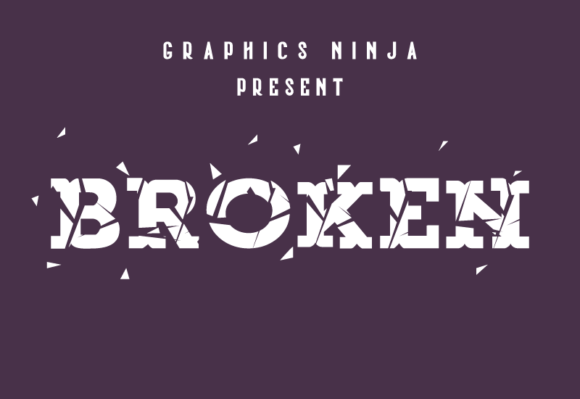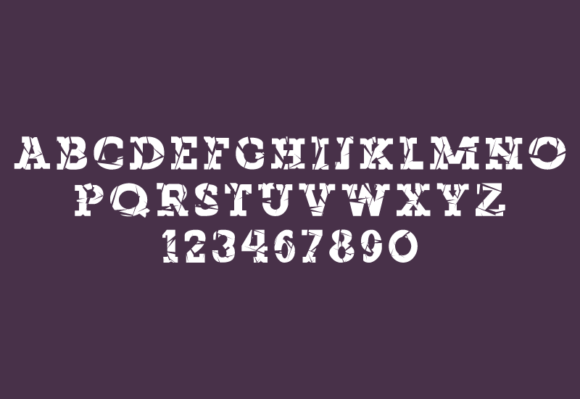
The Beauty of Broken: Unpacking the Broken Font Phenomenon
I still remember the time I was working on a project for a client who wanted a bold, edgy look. I spent hours scouring the internet for the perfect font, but nothing seemed quite right. That was until I stumbled upon a broken font that perfectly captured the aesthetic I was going for. It was love at first sight! The way the characters appeared damaged and fractured added a level of grit and realism to the design that I just couldn’t achieve with traditional fonts.
What is a Broken Font?
Broken font typically refers to a typeface design where the characters appear to be damaged, fractured, or broken in some way. This can be achieved through various design techniques, such as adding cracks, irregularities, or other distressing elements to the letterforms. The intention behind using such a font is often to convey a sense of decay, destruction, or a rough aesthetic.
My Honest Review of Broken Fonts
• ✨ Unique and eye-catching designs that add a touch of edginess to any project
• ✅ Ability to convey a sense of decay or destruction, perfect for designs that require a gritty feel
• 💡 Often features advanced OpenType features, glyphs, and stylistic alternates for added versatility
• 🤔 Can be difficult to read in large blocks of text due to the distressed nature of the font
• ⚠️ May not be suitable for formal or professional designs, such as business cards or resumes
The Designer Inspiration Behind Broken Fonts
The concept of broken fonts has been around for decades, with designers like Helvetica‘s Max Miedinger and Futura‘s Paul Renner experimenting with distressed and broken typefaces. However, the modern broken font phenomenon is largely attributed to the rise of digital design and the ease of creating and sharing custom fonts.
What is the purpose of using a broken font? The purpose of using a broken font is to convey a sense of decay, destruction, or a rough aesthetic. It’s often used in designs that require a bold, edgy look.
Can I use broken fonts for body text? While broken fonts can be beautiful, they may not be the best choice for body text. They can be difficult to read in large blocks of text, so it’s best to use them sparingly or for headings.
Are broken fonts only suitable for digital designs? No, broken fonts can be used in both digital and print designs. However, they may appear differently on different mediums, so it’s essential to test them before finalizing your design.
Can I customize broken fonts? Yes, many broken fonts feature advanced OpenType features, glyphs, and stylistic alternates that allow for customization. You can also use font editing software to create your own custom broken font.